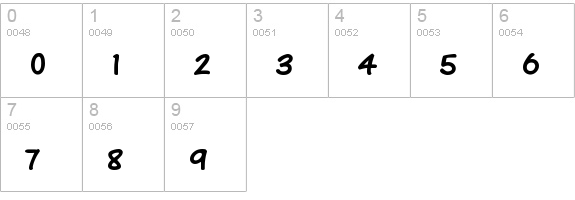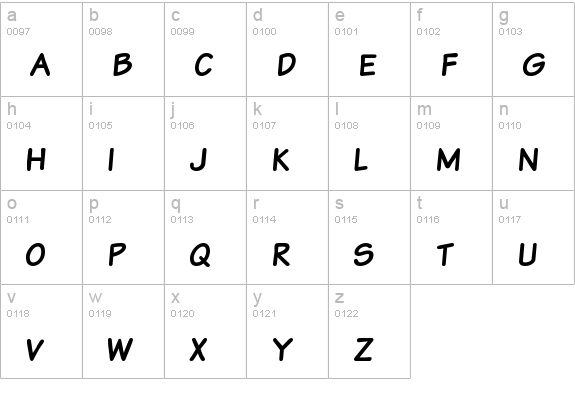
Komika Text Kaps is a modern and stylish font that adds a touch of sophistication to any design project. This unique typeface features bold, uppercase letters with a playful yet elegant style. The clean lines and sharp edges of Komika Text Kaps make it perfect for branding, headlines, and other creative projects. What sets this font apart is not only its striking appearance but also the fact that it is available for free. That's right, you can download Komika Text Kaps at no cost from FontsMarket.com. With this versatile font at your fingertips, you can easily elevate your designs and make a bold statement. Whether you're creating a logo, poster, or website, Komika Text Kaps is sure to make a lasting impression. So why wait? Download this stunning font today and take your design projects to the next level!